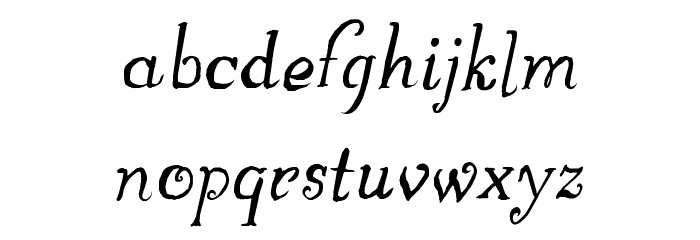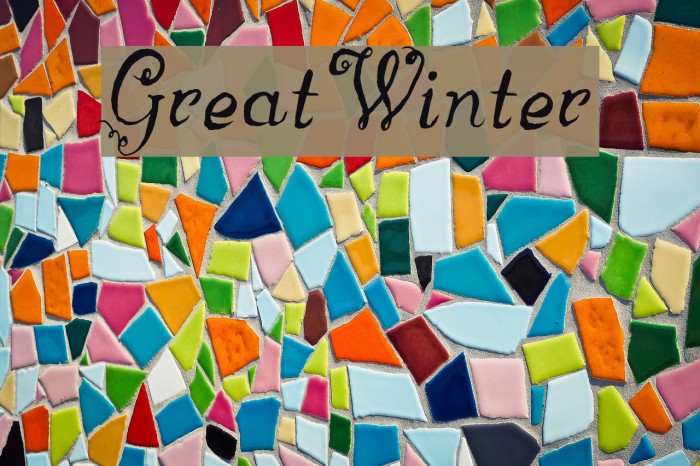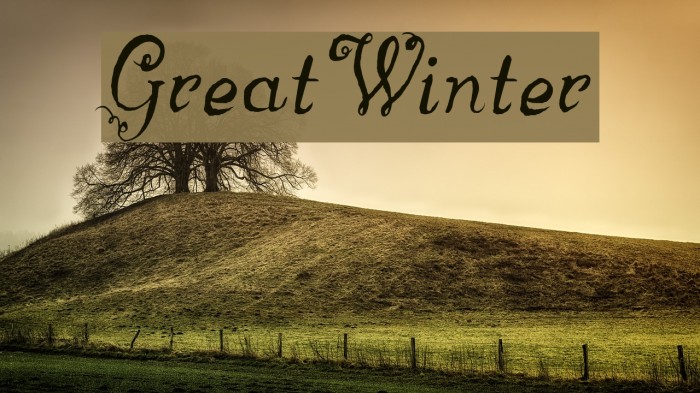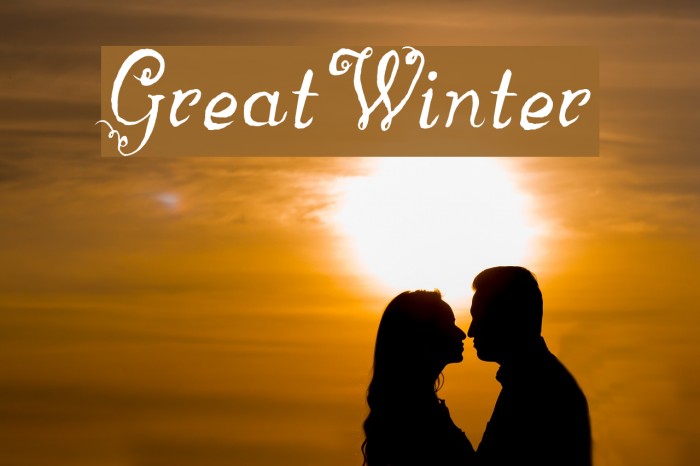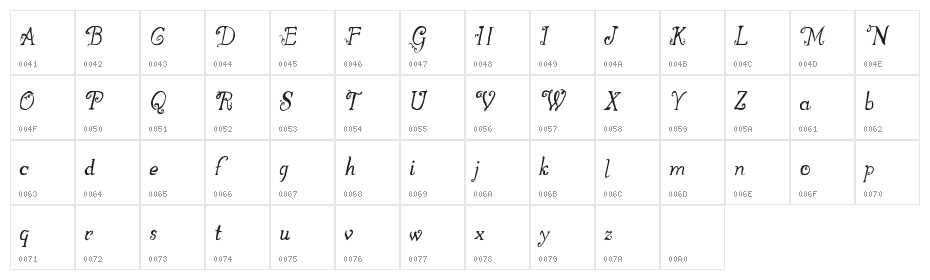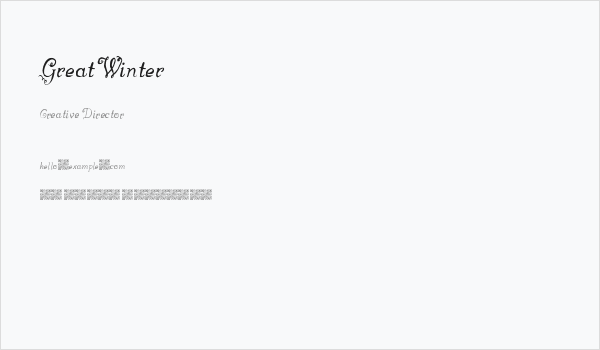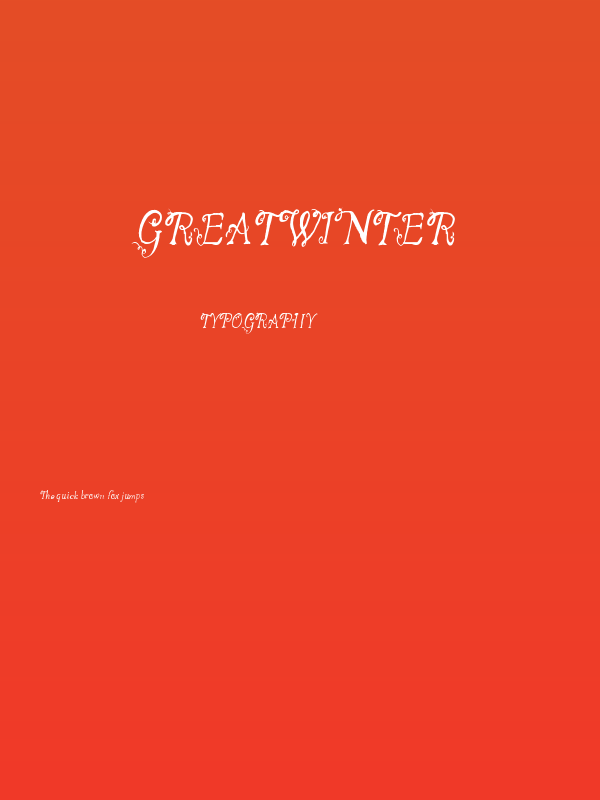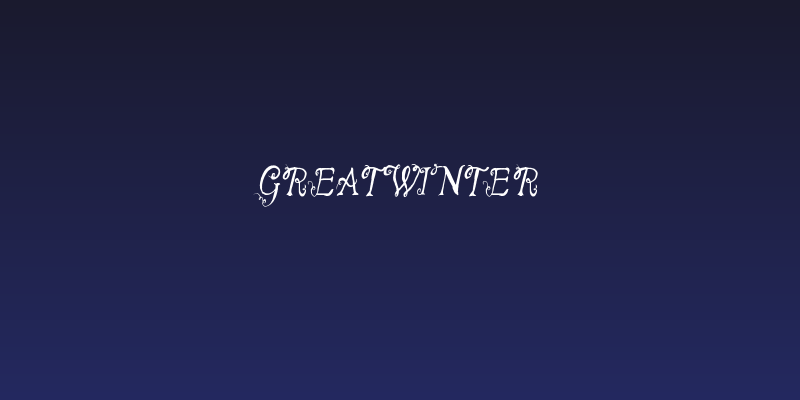
GreatWinter Font
This font features an ornate and decorative style, characterized by elegant swirls and flourishes that extend from the main strokes of each letter. The uppercase letters are particularly elaborate, with intricate details that give them a whimsical and artistic appearance. The lowercase letters maintain a more subdued elegance, offering a nice contrast to the ornate capitals. The overall design is reminiscent of vintage calligraphy, with a touch of modern flair. The font's unique style makes it suitable for creative and artistic projects where a touch of elegance and sophistication is desired.
An ornate and decorative font with elegant swirls and flourishes.
- Proposed Projects: Ideal for wedding invitations, greeting cards, branding, and decorative posters.
- Overall Style: Vintage
- Use Case: Logos, Headlines, Decorative text